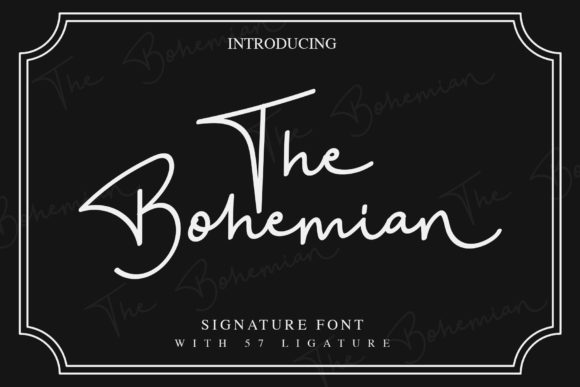
The Bohemian Font: Elevate Your Design with Elegance
I’ll never forget the design project that led me to discover the Bohemian font. I was working on a photography portfolio for a client who wanted a signature look that exuded simplicity and class. As I scrolled through font after font, nothing seemed quite right – until I stumbled upon Bohemian. Its handwritten script style with a simple yet sophisticated vibe instantly clicked with me. I knew right then and there that this was the font that would elevate my design to the next level.
An Honest Review of Bohemian Font
- ✨ Simple and classy style that’s versatile for various design projects
- ✅ Great for photography, signatures, quotes, album covers, business cards, and more
- 💫 Works beautifully in both digital and print formats
- 👍 Highly legible, even at smaller font sizes
While Bohemian is an excellent font, there are a few things to keep in mind:
- 🤔 It may not be the best fit for very formal or traditional designs, as it has a somewhat casual feel
- ⚠️ Some users have reported issues with kerning, but this can often be adjusted manually
- Experiment with OpenType features like ligatures and stylistic alternates to add character to your text
Exploring Alternatives to Bohemian Font
The Backstory of Bohemian Font
While the origins of Bohemian font might be shrouded in mystery, it’s clear that its design was inspired by a desire to create a font that embodies simplicity, elegance, and a touch of bohemian spirit. Designers often draw inspiration from various sources – travel, art, nature – and it’s likely that Bohemian’s creator was no exception. The result is a font that feels both timeless and contemporary.
Q: What type of projects is Bohemian font best suited for?
A: Bohemian font is versatile and can be used for a variety of projects including photography portfolios, signatures, quotes, album covers, business cards, and more.
Q: Is Bohemian font suitable for body text?
A: While Bohemian is highly legible, its script style may not be ideal for long body texts. It’s best used for headings, titles, or short paragraphs where you want to make a statement.